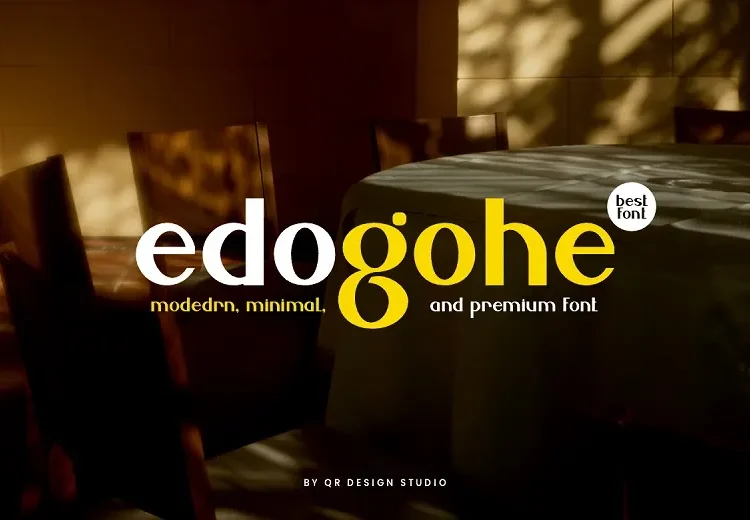
Edogohe Font
Introducing Edogohe, a sans serif font that effortlessly blends charm and sophistication, ensuring it remains a classic choice for design projects. This versatile font is perfect for crafting impactful logos, developing memorable branding, and creating compelling quotes that capture attention.
Edogohe’s design is characterized by its elegant letterforms, each meticulously crafted to contribute to the overall refinement of your work. Whether you’re aiming to create a standout logo, establish a strong brand identity, or design quotes that resonate, Edogohe brings a touch of grace and style to every project.